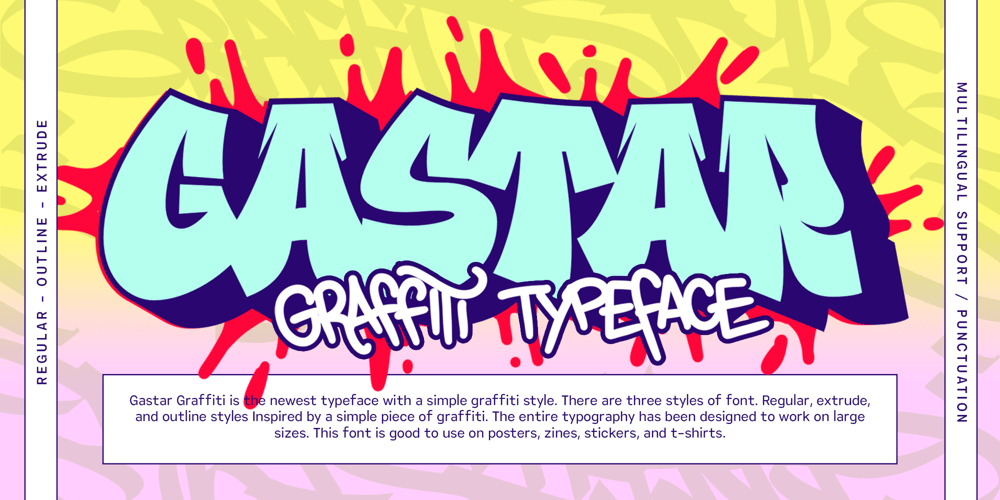
Gastar Graffiti Font Family was designed by Moch Fitrah Hidayat and published by Fitrah Type. Gastar Graffiti contains 3 styles and family package options. Gastar Graffiti is the newest typeface with a simple graffiti style. There are three styles of font. Regular, extrude, and outline styles Inspired by a simple piece of graffiti. The entire typography has been designed to work on large sizes. This font is good to use on posters, zines, stickers, and t-shirts.